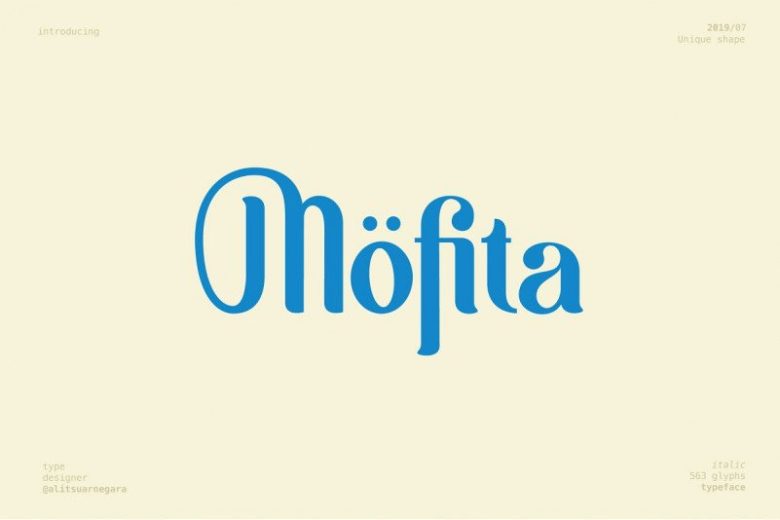
Möfita Display Font
Möfita Display Font – Free Demo
Hi all…!! This is unique display font with wavy dancing ocean wave. Introducing Möfita Font. This font looks simple and elegant, the font is also very easy to read and suitable to be applied anywhere. Möfita are supported with multilingual characters, and in the future, they will always be updated for additional characters and alternatives. This font is perfect for your collection for making designs that are elegant, unique and slightly formal. Very good for logotype, header texts, quote design, menu design, etc. We are sure you will not be sorry if you choose the Möfita to be your collection.